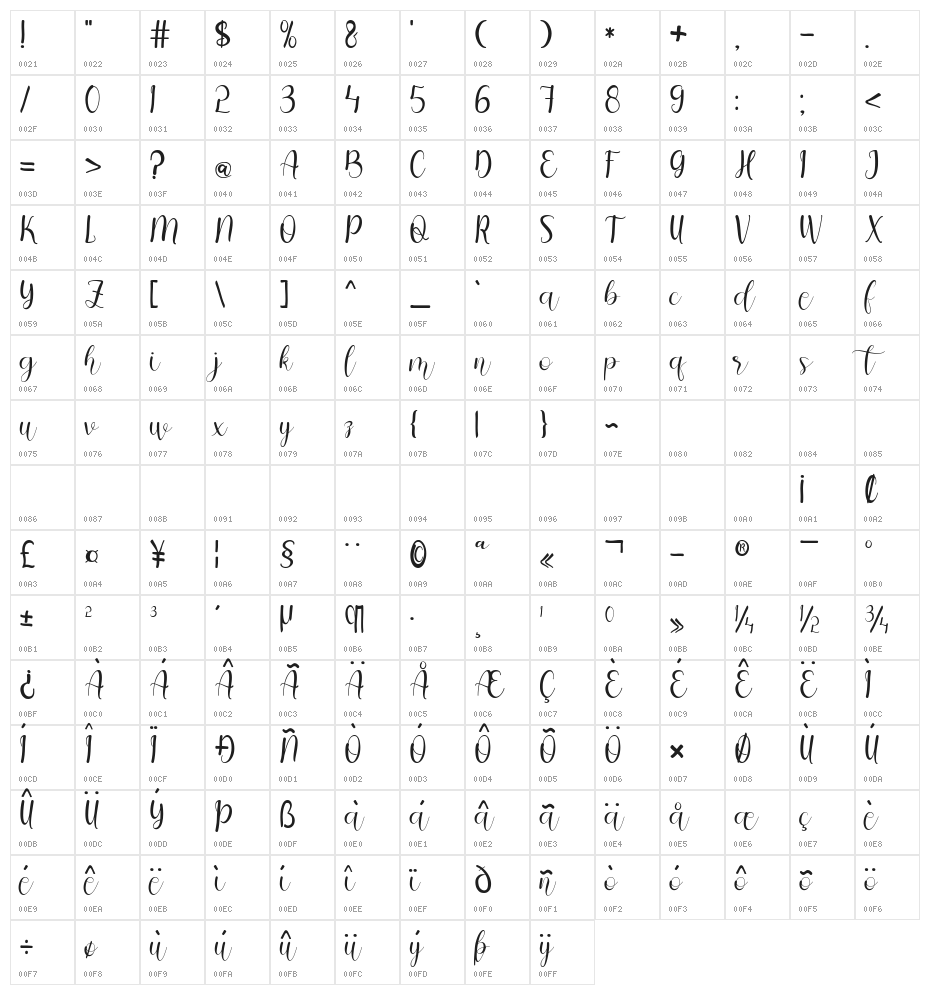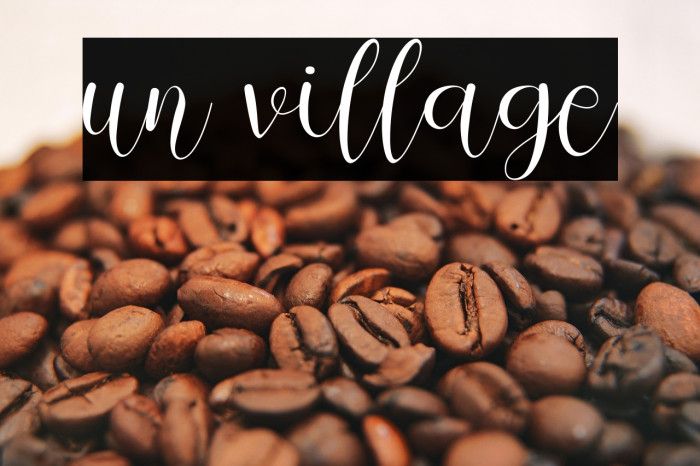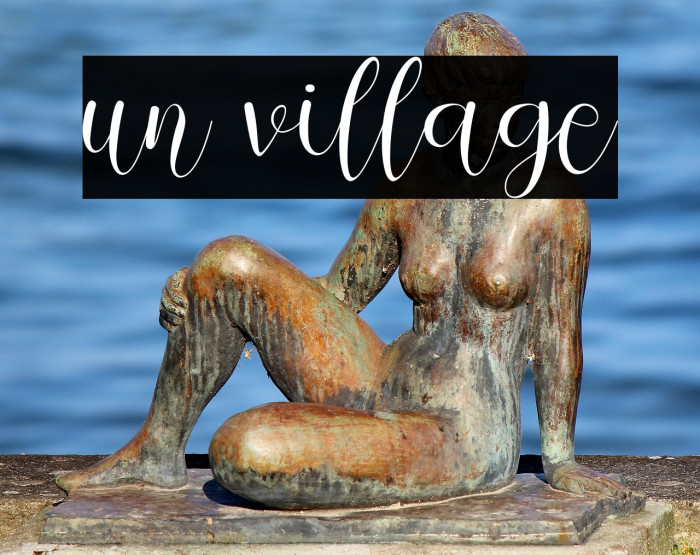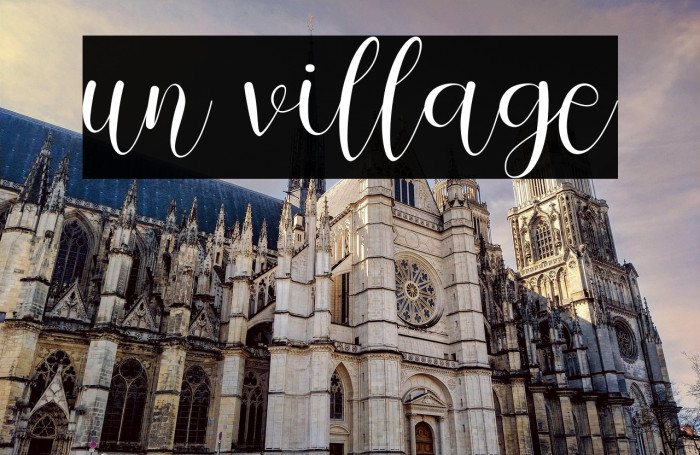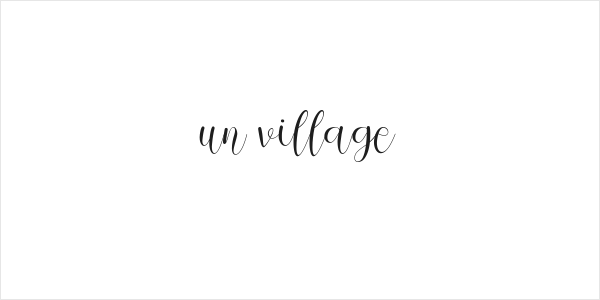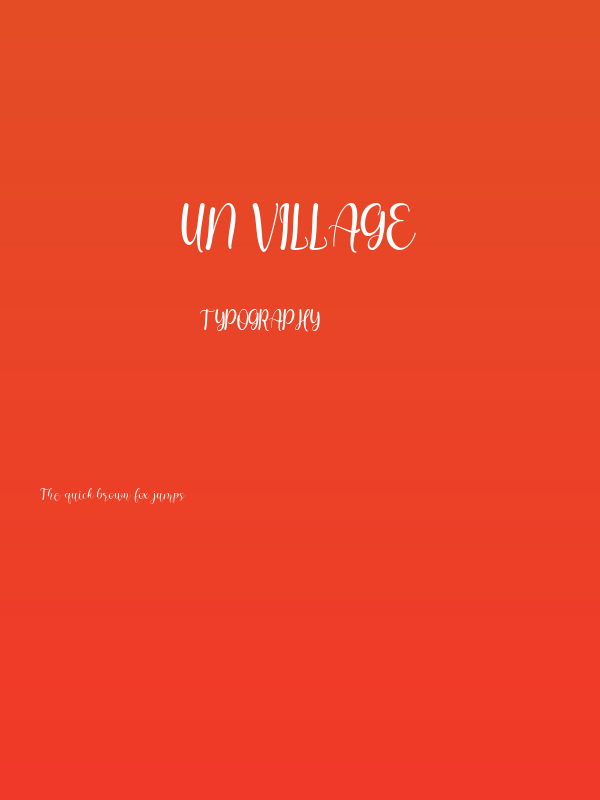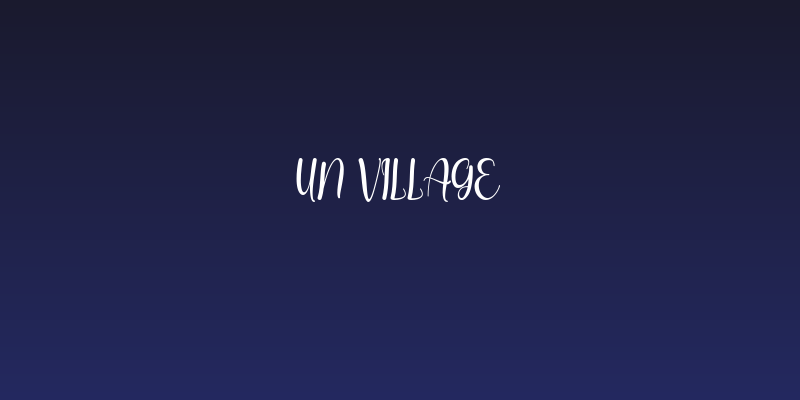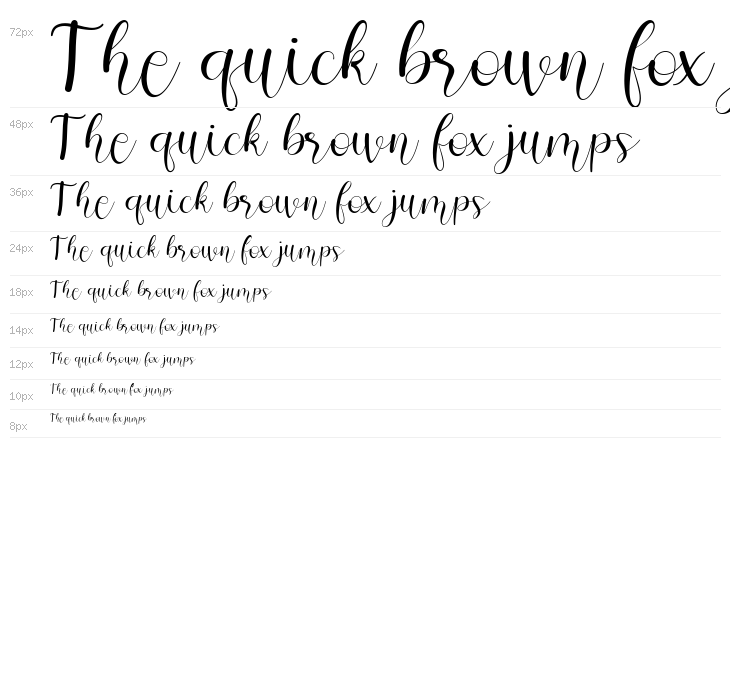
un village Font
un village Description
This font exudes a playful and elegant script style, characterized by its flowing, cursive letters. The uppercase letters are bold and expressive, with a slight slant that adds a dynamic feel. The lowercase letters maintain a consistent style, featuring smooth curves and loops that enhance its handwritten appearance. The numerals are clear and easy to read, with a slight flourish that ties them into the overall design. Special characters are creatively integrated, maintaining the font's cohesive aesthetic. This font is perfect for projects that require a personal touch, such as invitations, greeting cards, or branding materials.
| Proposed Projects | Ideal for invitations, greeting cards, branding, and decorative projects. |